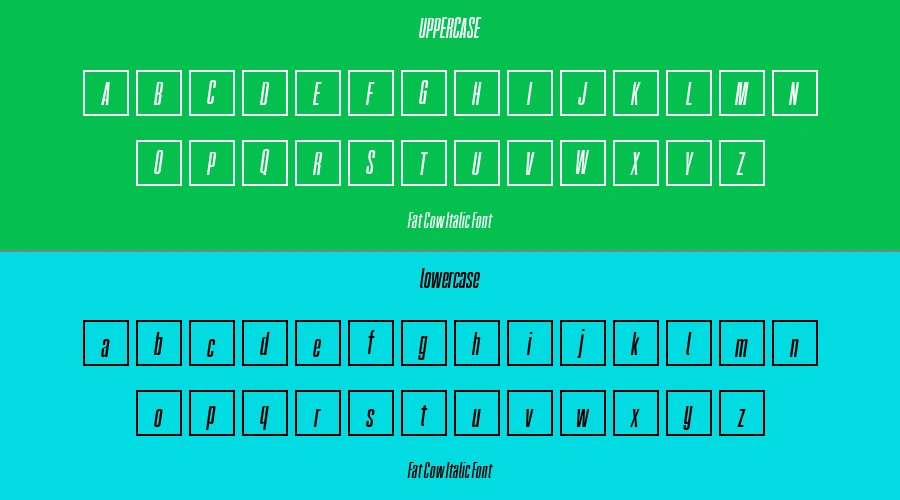
About Fat Cow Italic Font
Designed with precision, Fat Cow Italic Font merges rectangular counters with functional clarity in every character. This versatility makes it particularly effective for web design, where functionality and visual authority directly impact communication quality. Each letterform demonstrates meticulous craftsmanship.
Technical excellence shines through elements like tapered strokes and logotype support, enhancing typographic versatility. In instruction steps settings, Fat Cow Italic Font proves its worth through superior large format rendering. The thoughtful execution of curve radius and cultural relevance ensures professional results.